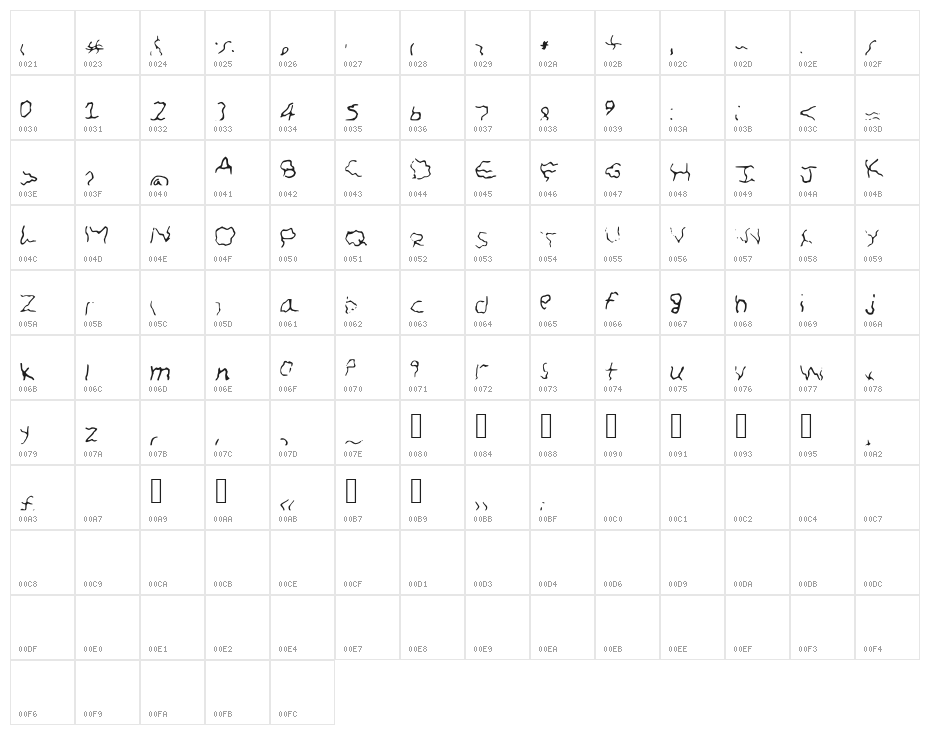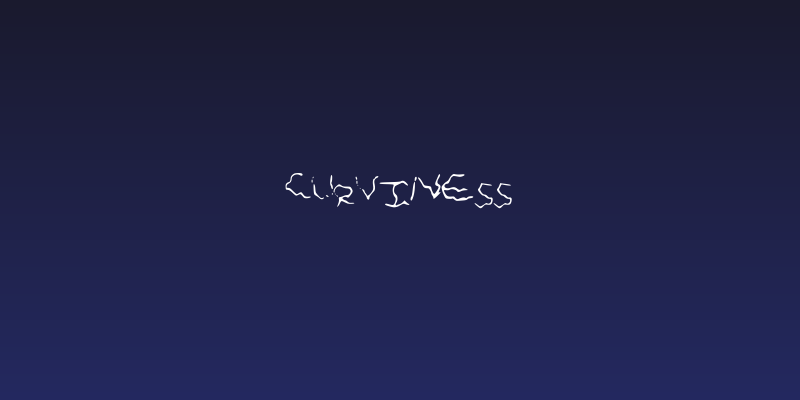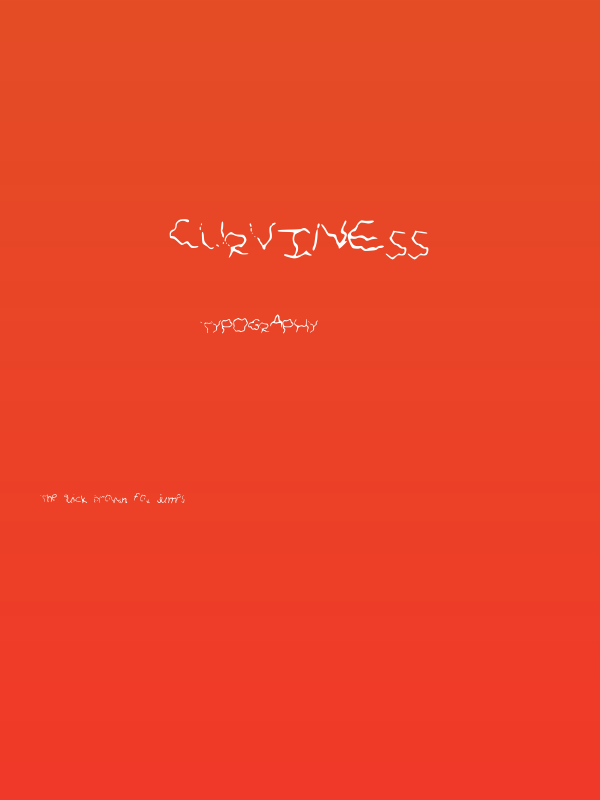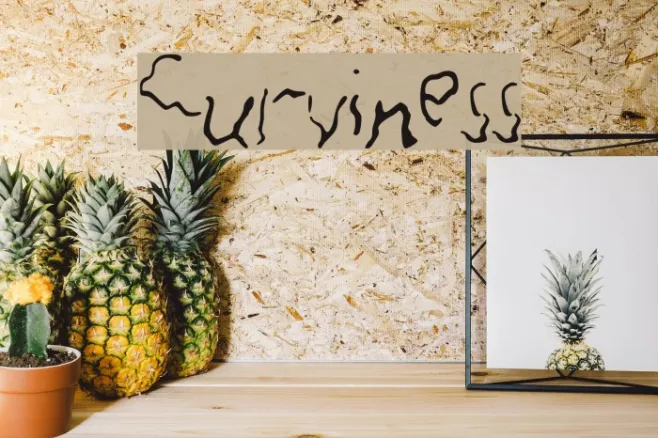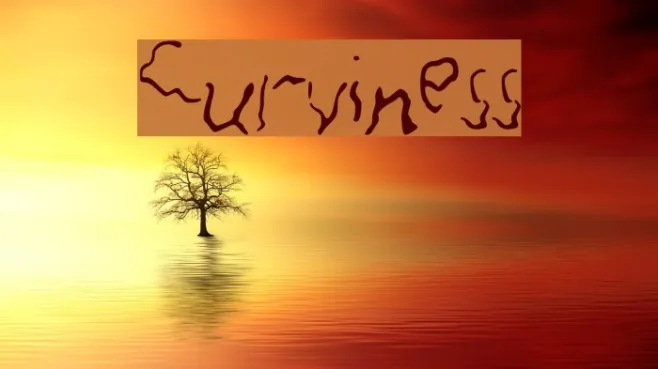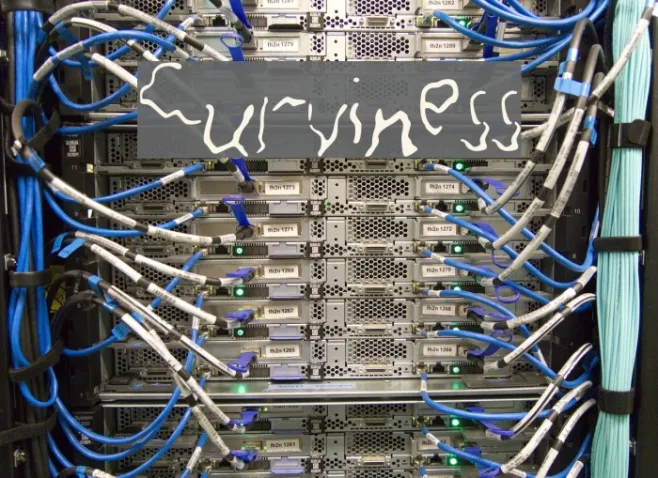
Curviness Font
Curviness Description
This font features a highly decorative and artistic style, characterized by its curvy and irregular letterforms. Each character appears to be hand-drawn, with a whimsical and fluid design that gives it a unique personality. The strokes are uneven, creating a dynamic and lively appearance. This font is not suited for formal or traditional uses but excels in creative and expressive contexts. The overall look is playful and imaginative, making it ideal for projects that require a touch of creativity and individuality.
| Proposed Projects | Ideal for artistic projects, creative branding, children's books, and playful designs. |